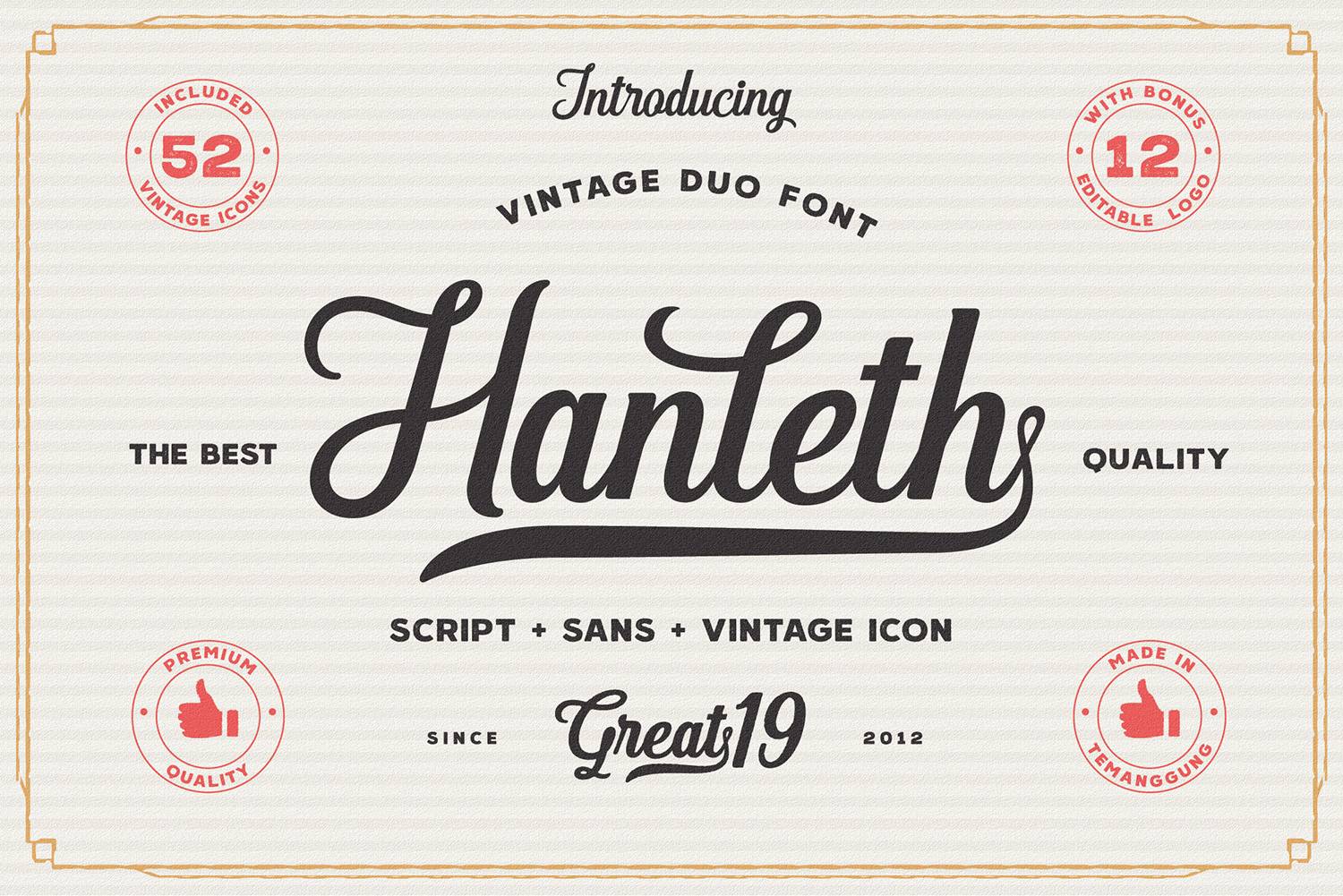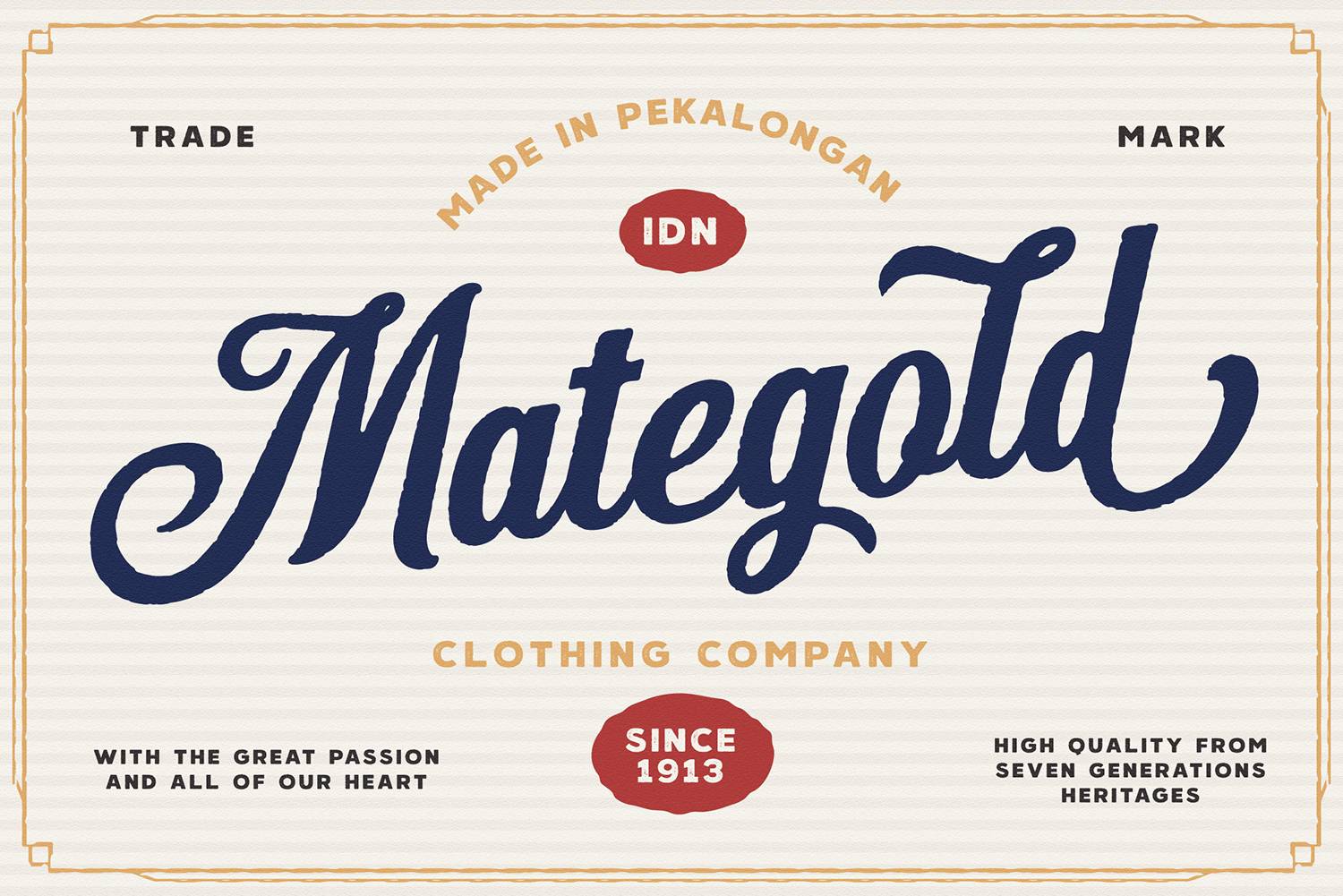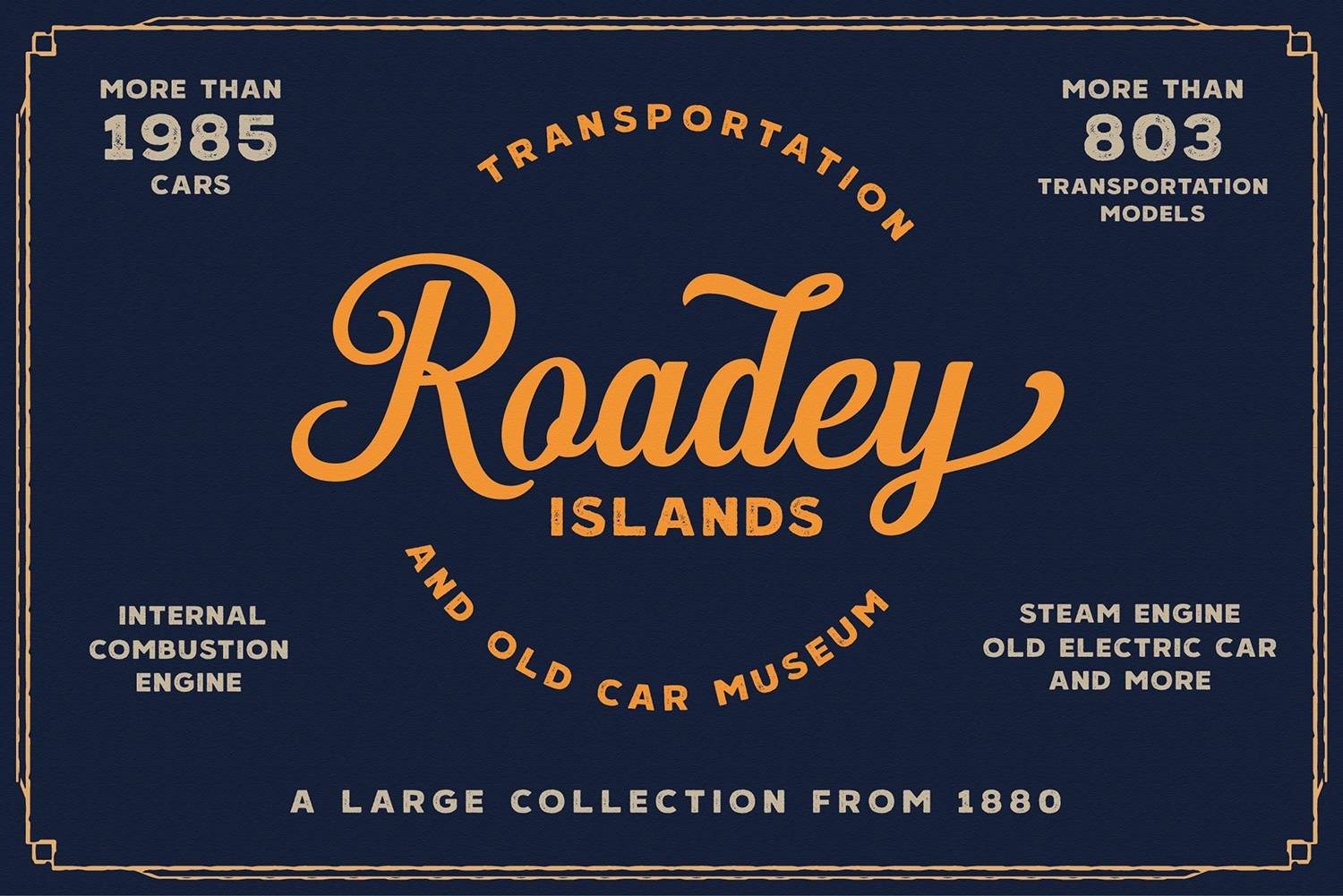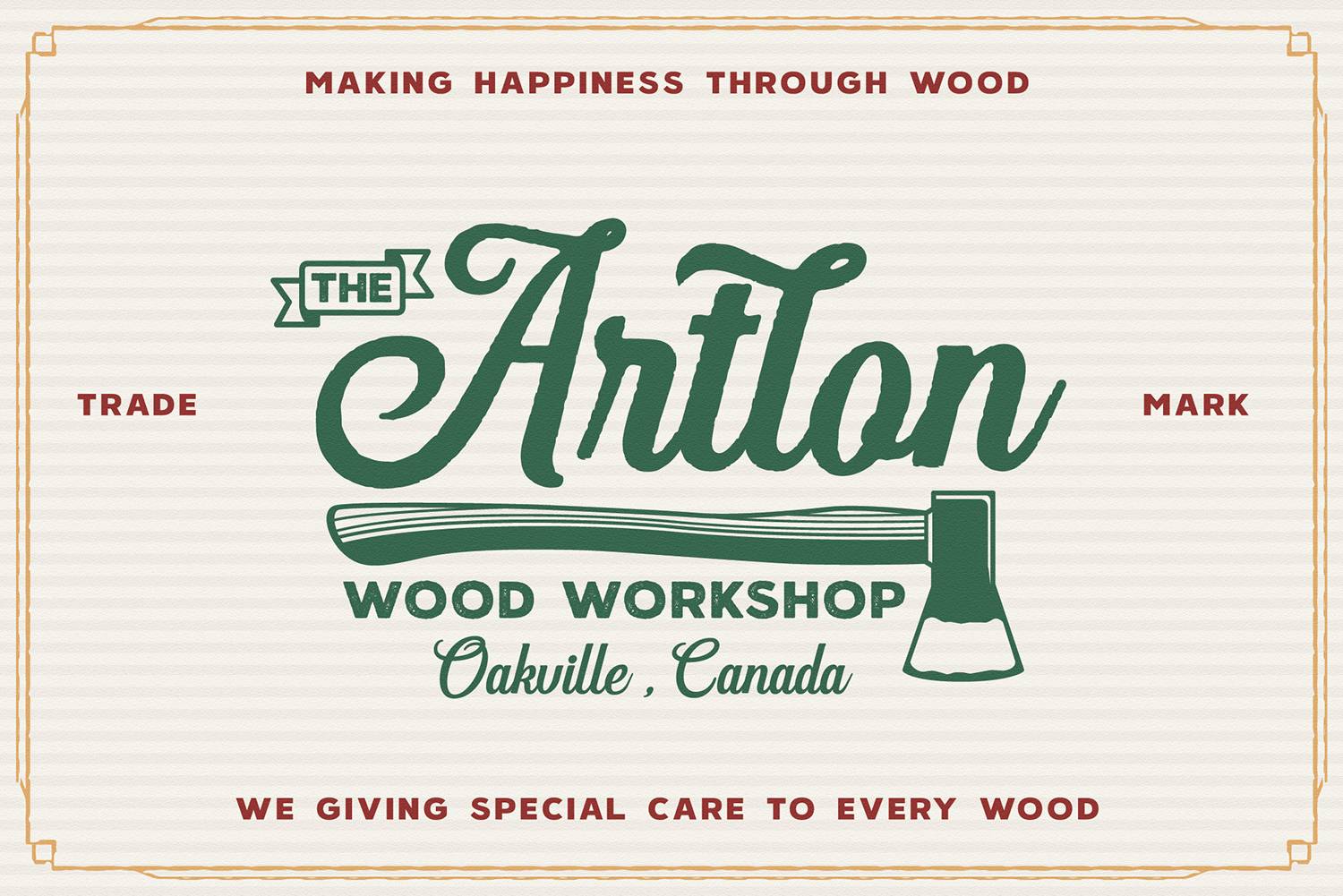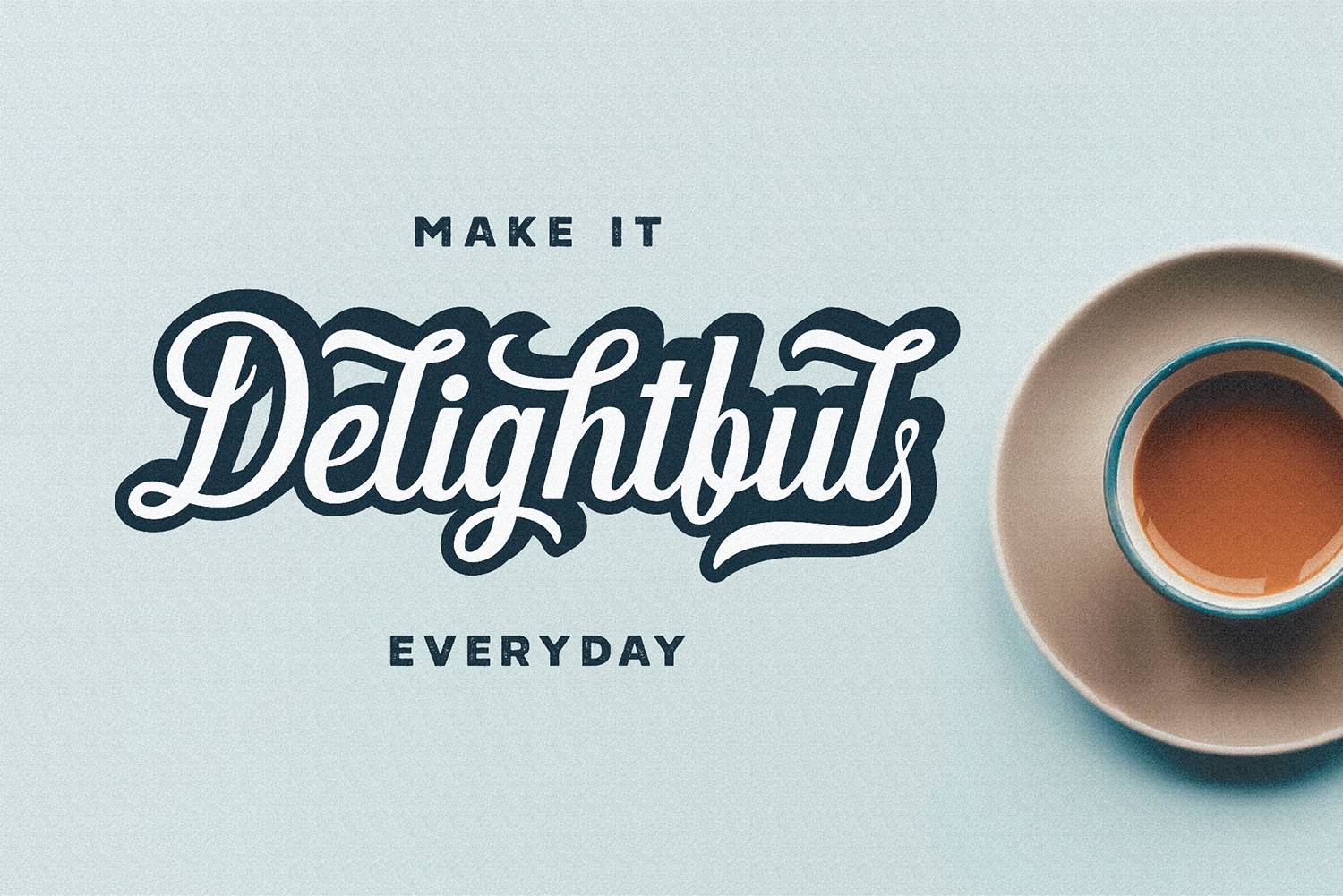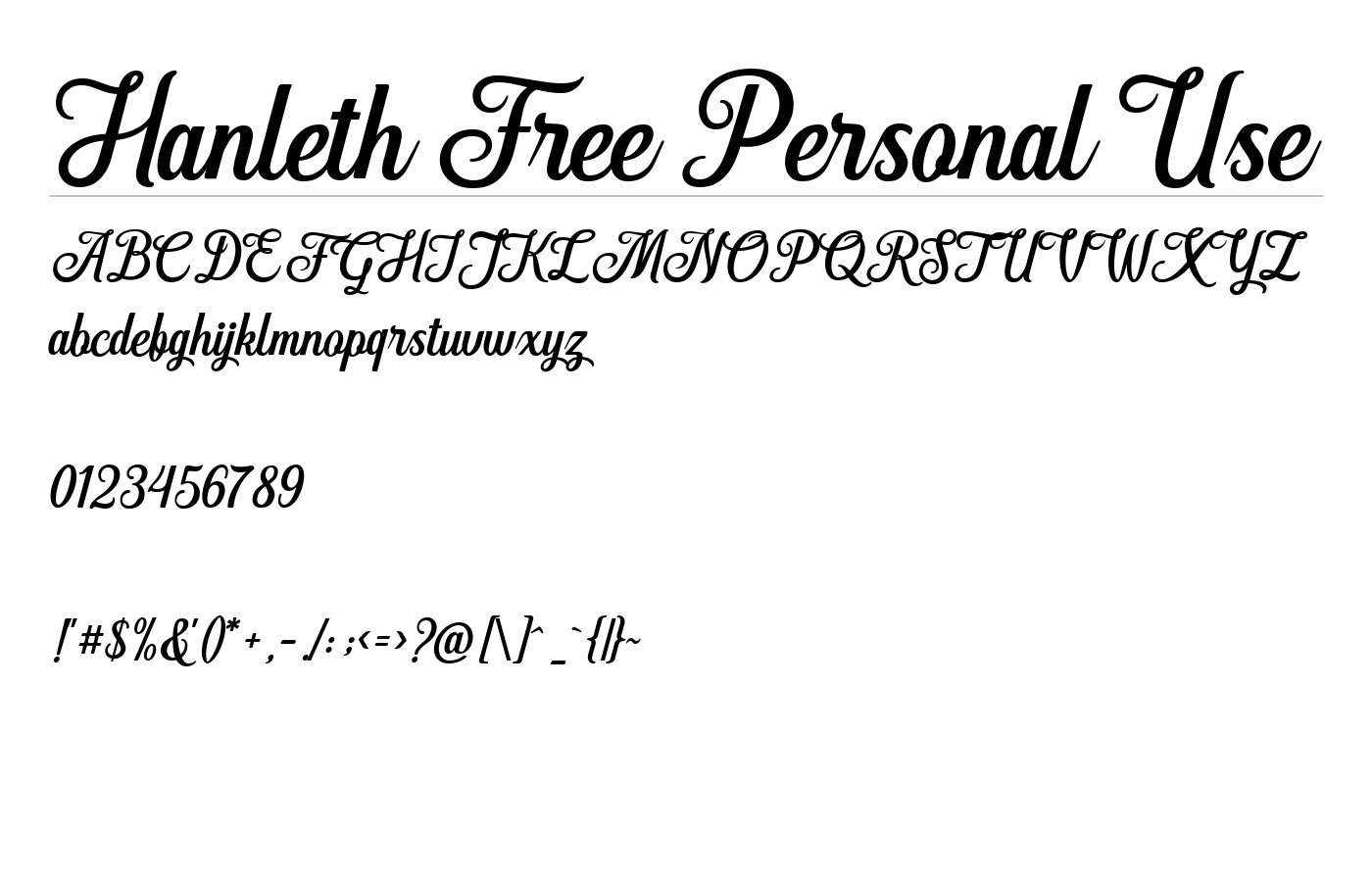
Hanleth is an elegant script font characterized by its flowing, connected letterforms and refined, calligraphic style. With a medium weight and slightly condensed width, it combines classic sophistication and a modern touch, making it perfect for invitations, branding, and stylish headlines that need a graceful and personal feel. Its balanced contrast and smooth curves convey a timeless charm ideal for luxury and creative projects.
Hanleth Font
About Hanleth Font
| Font family | Hanleth Font |
| Release date | 2019-03-07 |
| Designer | Andhi Yulianto |